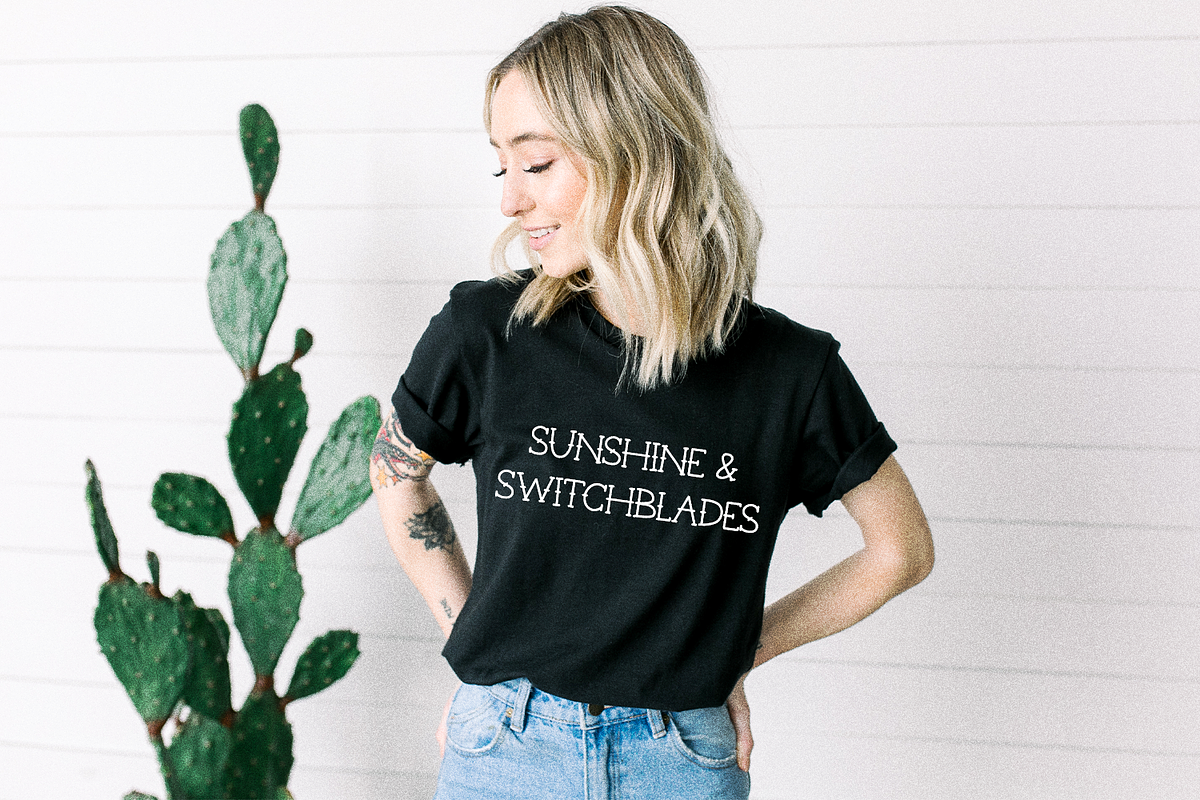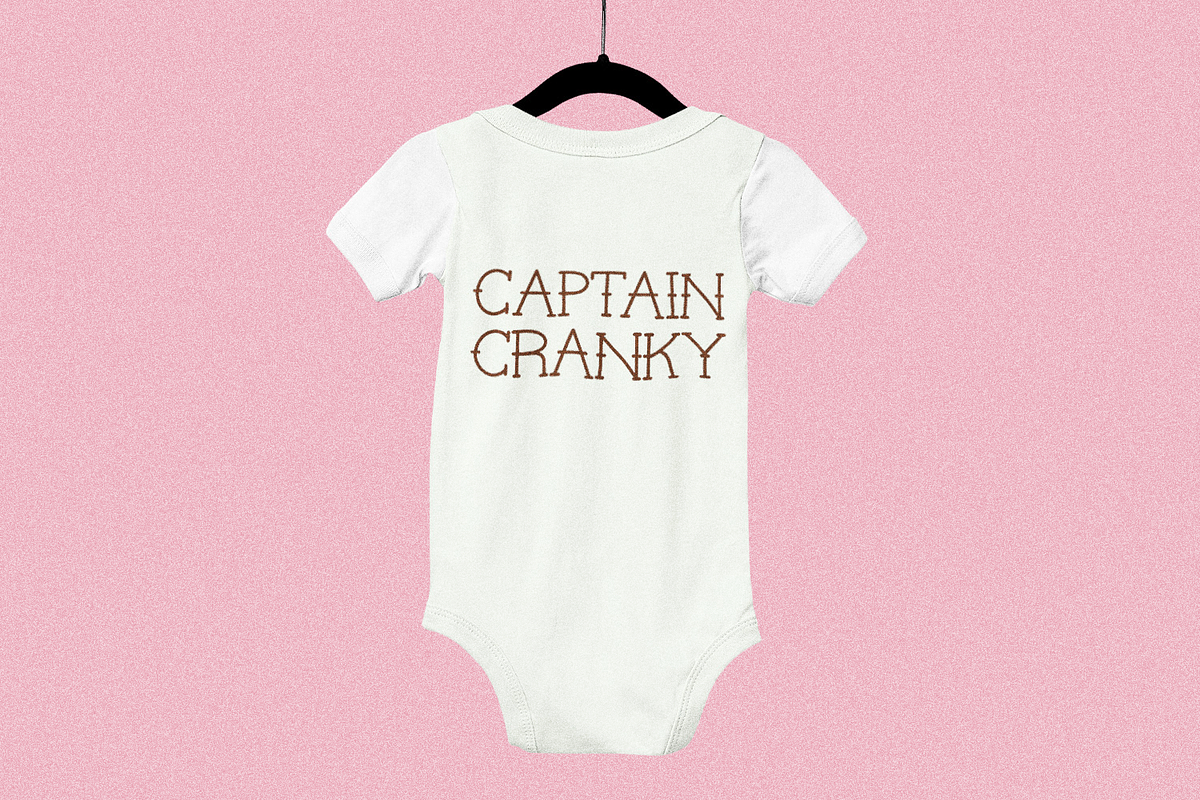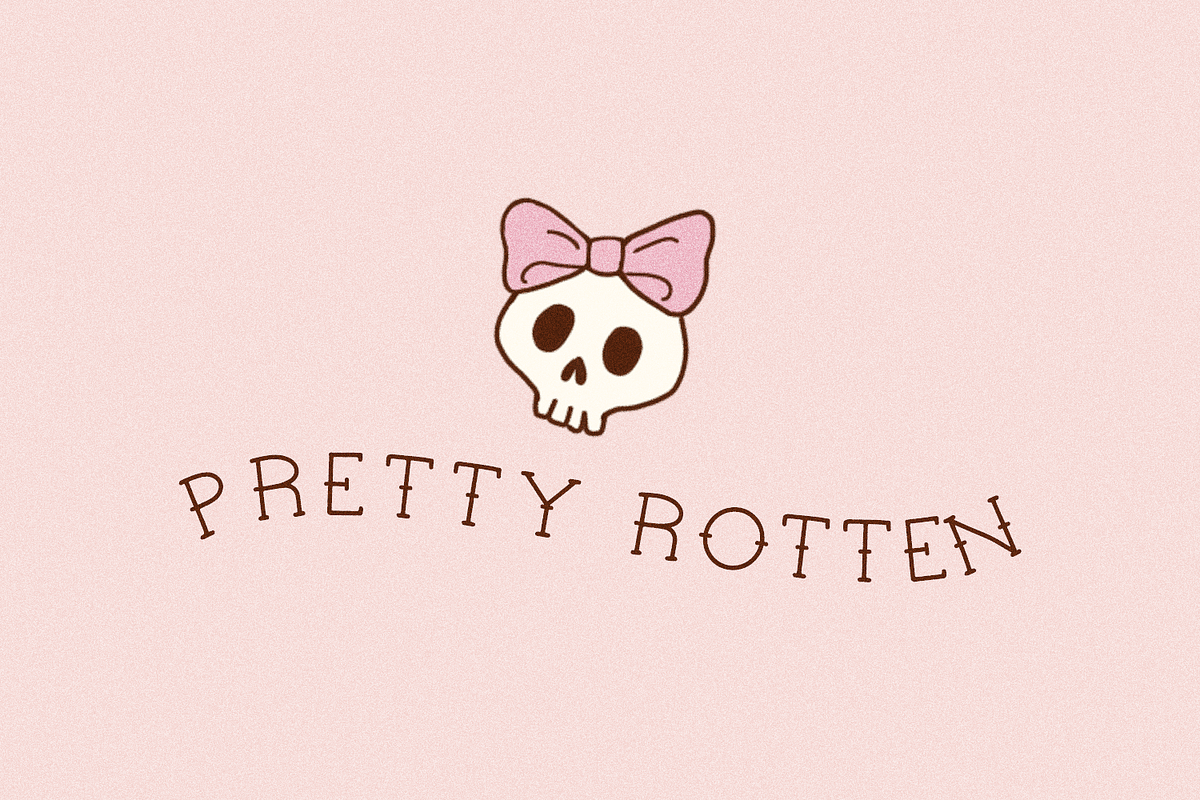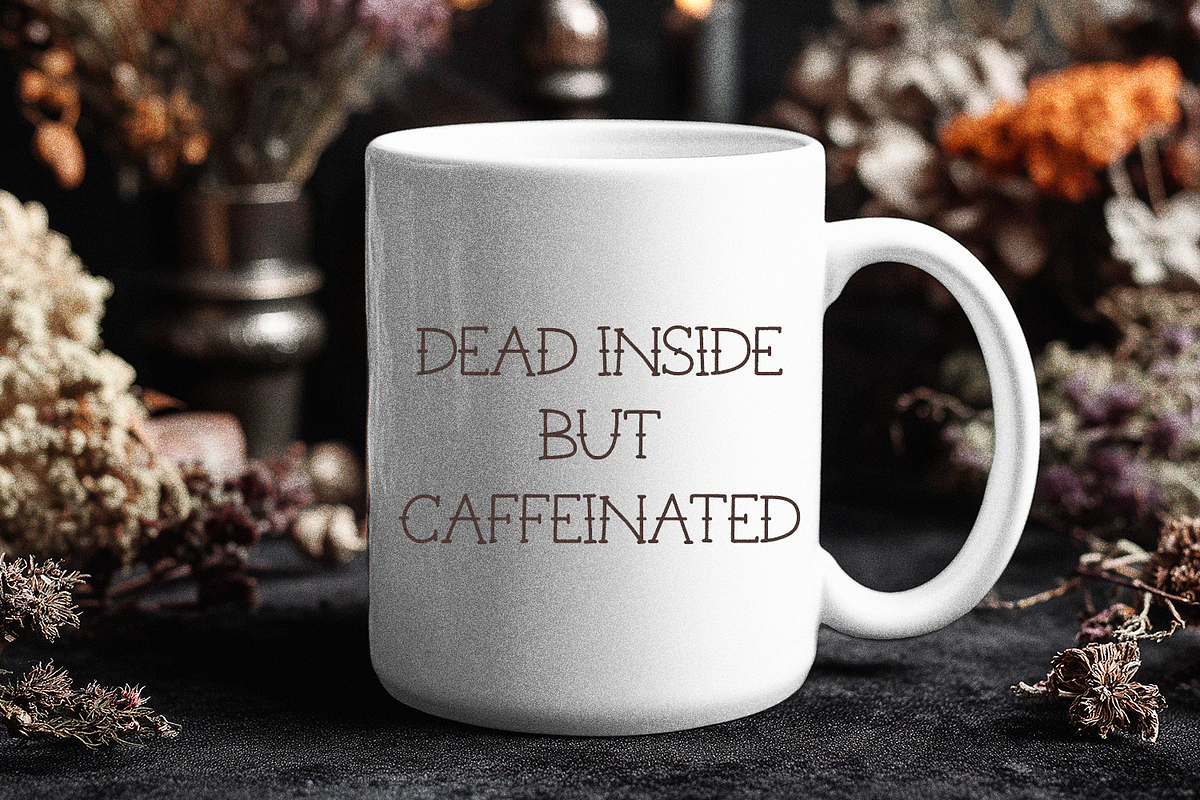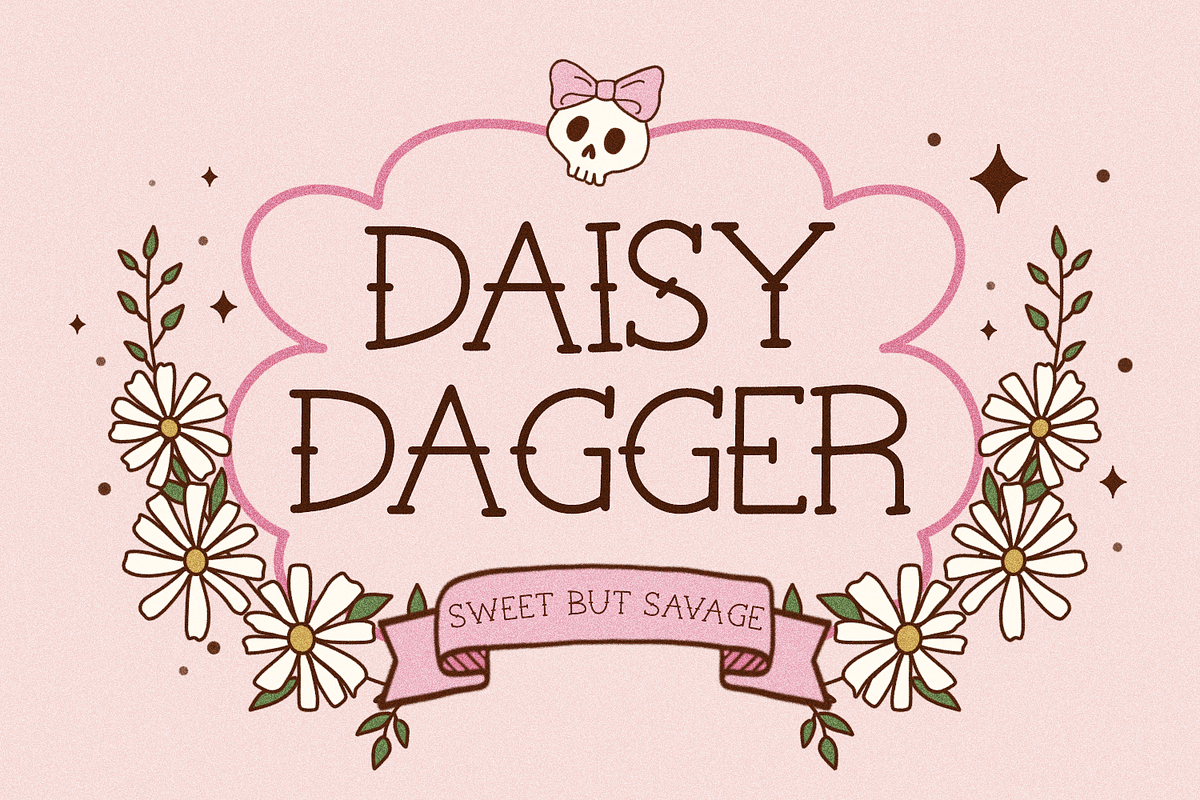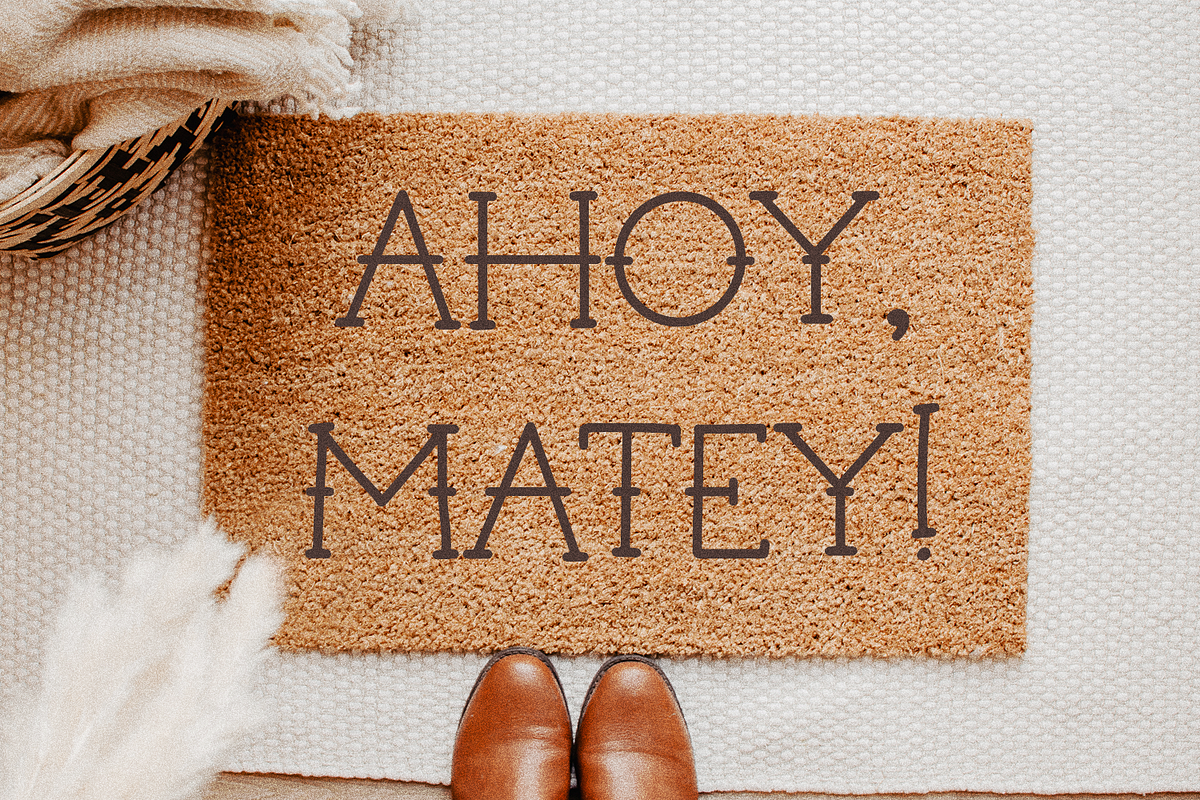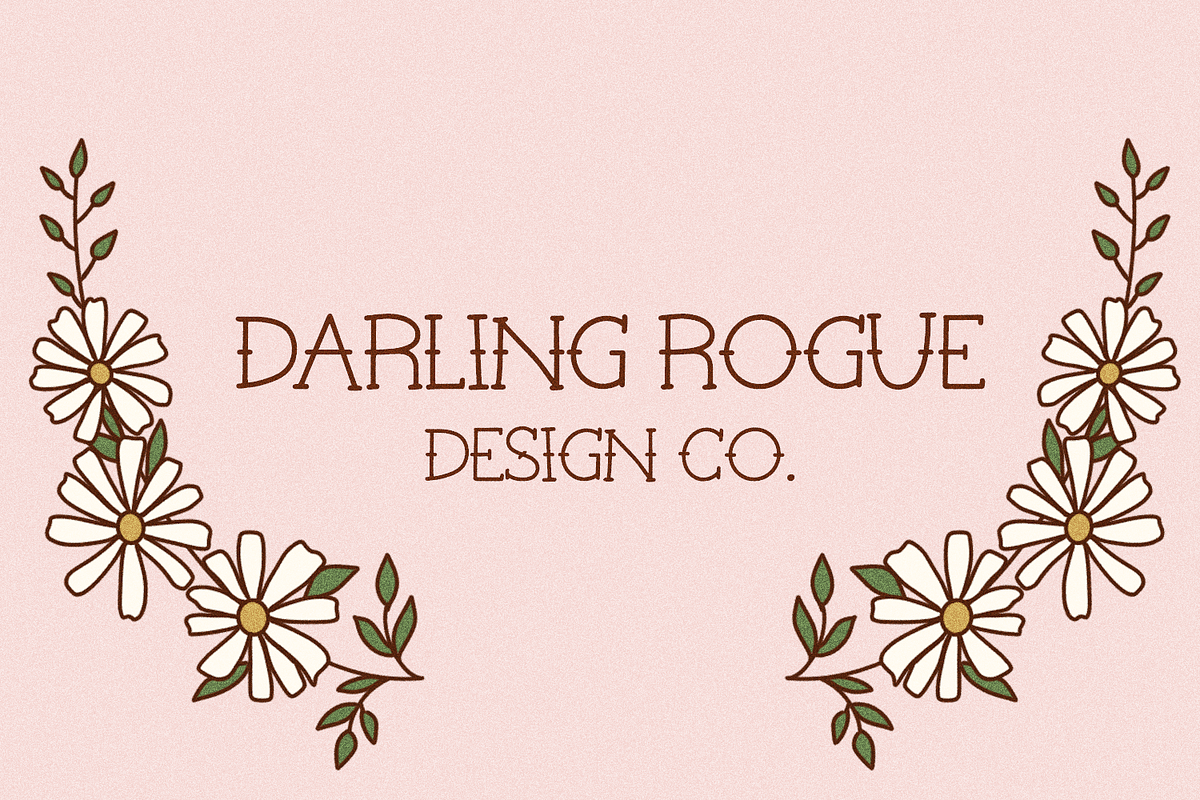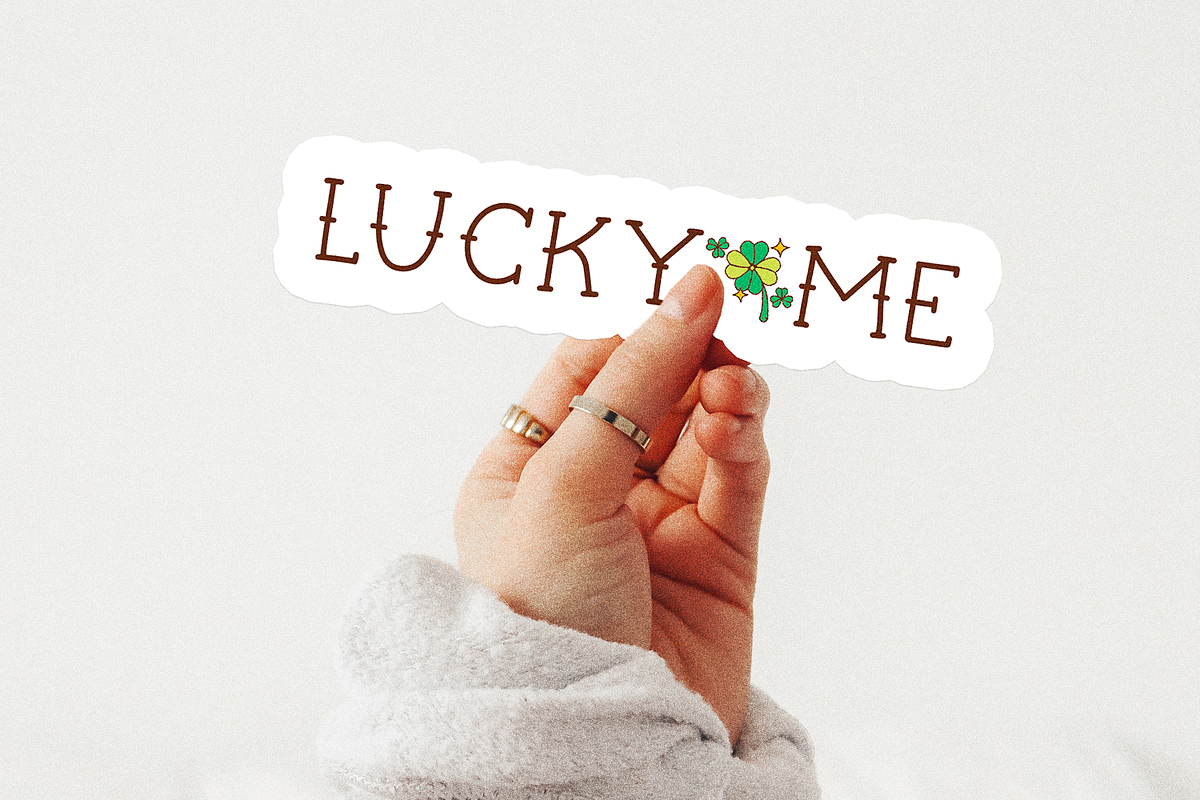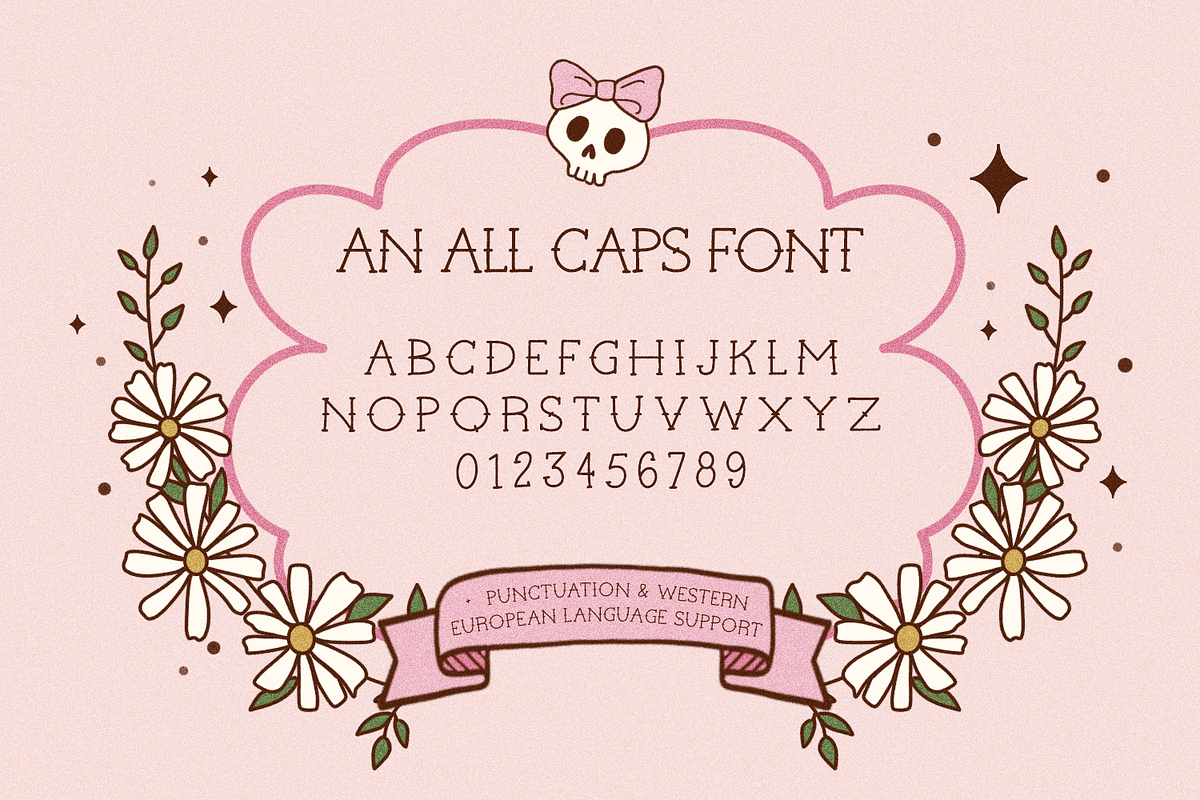
Daisy Dagger Serif Font
Say hello to Daisy Dagger Serif, a feminine approach to American Traditional tattoo lettering. Daisy Dagger is a hand lettered serif font featuring simple, soft spurs. This font is an all caps font, and can be used for a variety of designs. Some suggested uses are t-shirt design, crafts, logo design, brand design like print materials or packaging, other apparel like hats, tote bag design, coffee mug design, and home decor items like door mats or signs. Daisy Dagger is versatile, and can be used for tattoo-related design work, or it could also be used for nautical-style designs, as well.
Daisy Dagger includes:
- full upper + lowercase characters (caps are programmed into upper and lowercase spots)
- numbers + punctuation
- Western European language support - English, French, Spanish, Portuguese (Brazil), Portuguese (Portugal), Italian, German (Germany), German (Austria), Dutch, Danish, Swedish, Norwegian (Bokmål and Nynorsk), Finnish, Icelandic, Irish, Welsh